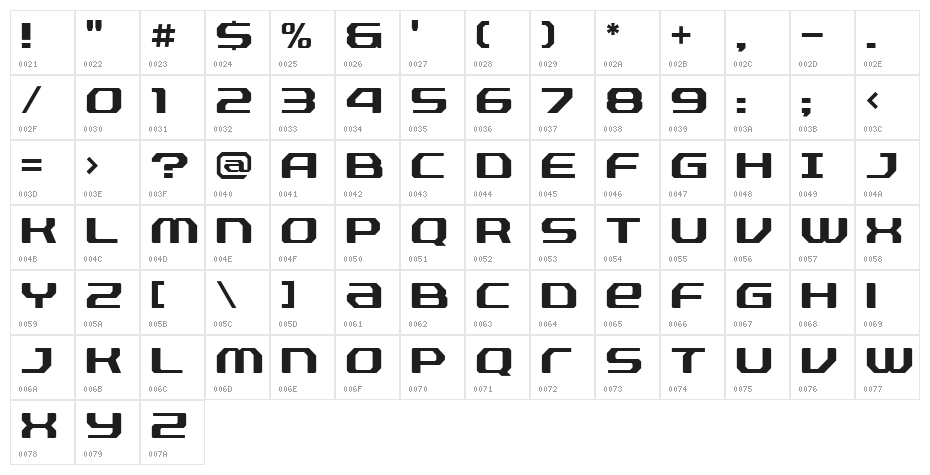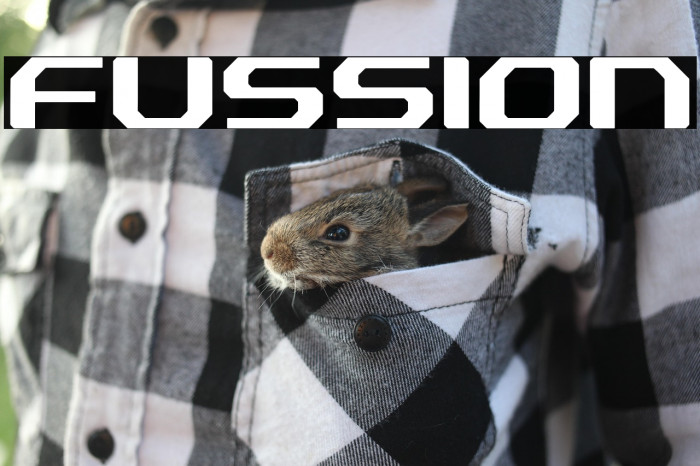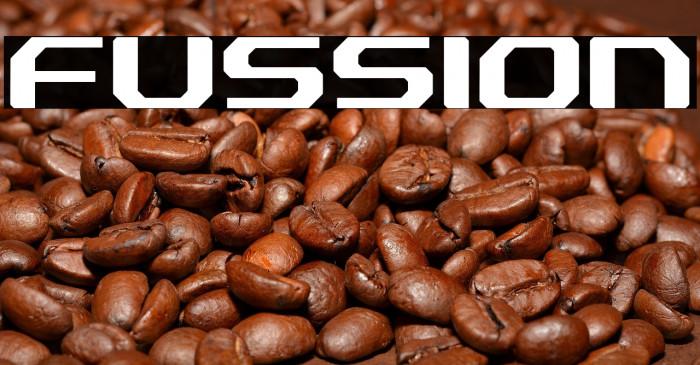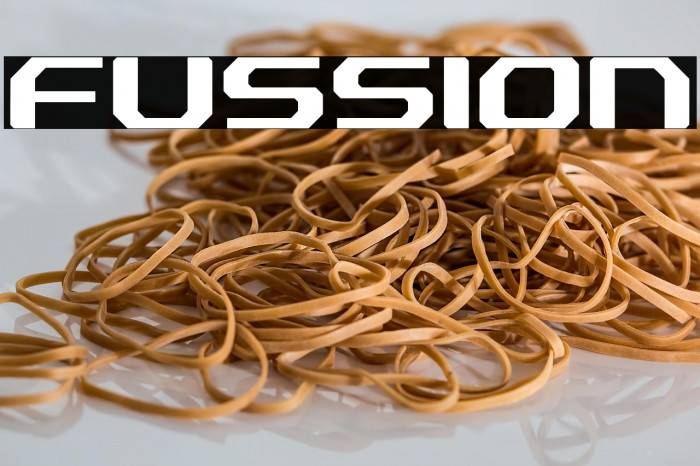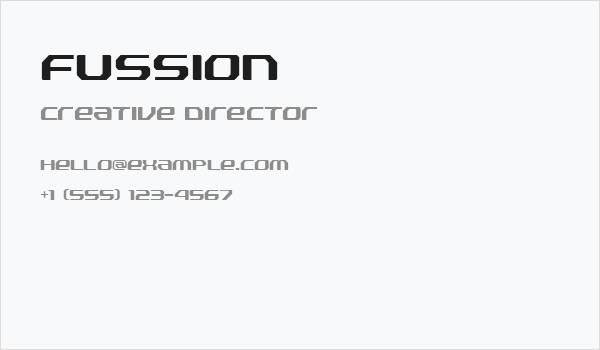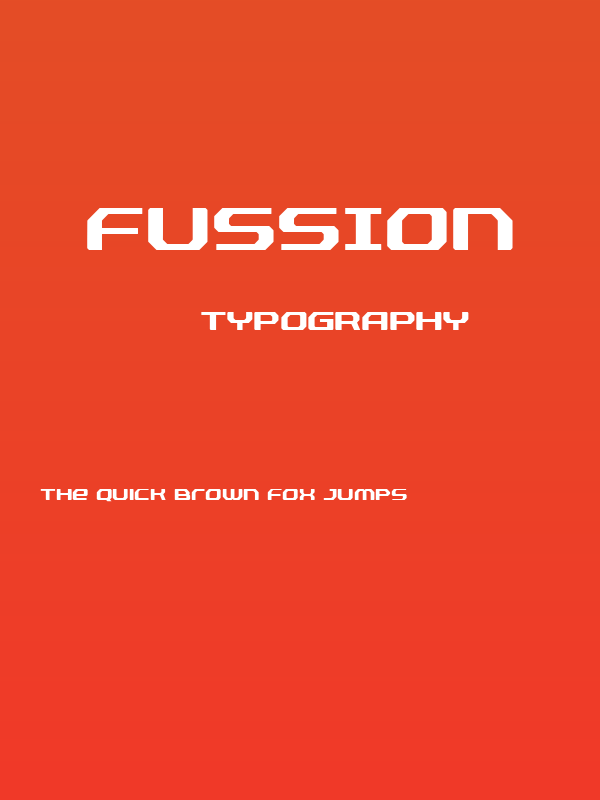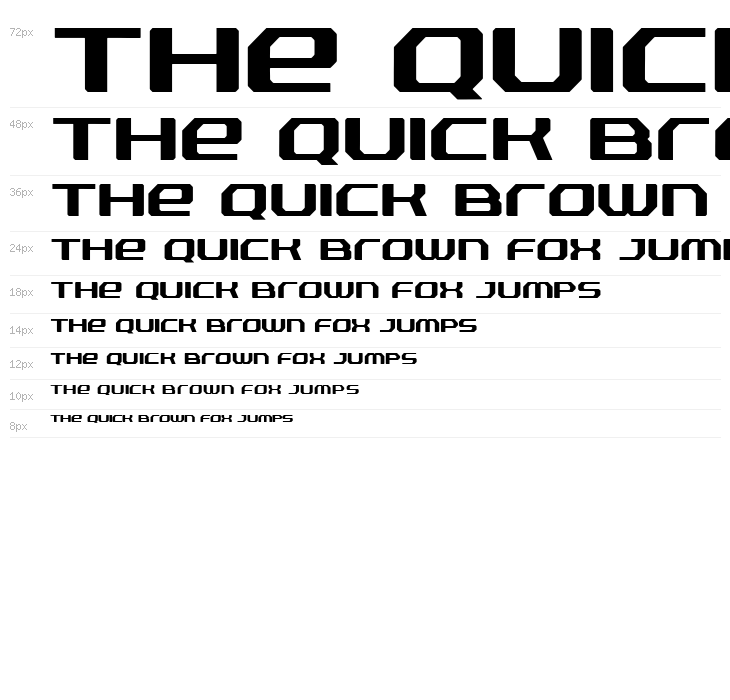
Fussion Font
Fussion Description
This font exhibits a futuristic and geometric style, characterized by its bold and angular letterforms. The characters are constructed with sharp edges and a uniform thickness, giving it a modern and technical appearance. The uppercase and lowercase letters maintain a consistent design, enhancing readability while preserving a unique aesthetic. The numerals and special characters follow the same design principles, ensuring a cohesive look across all glyphs. This font's distinct style makes it suitable for projects that require a contemporary and innovative feel.
Proposed ProjectsIdeal for technology branding, sci-fi movie posters, video game titles, and modern web design.